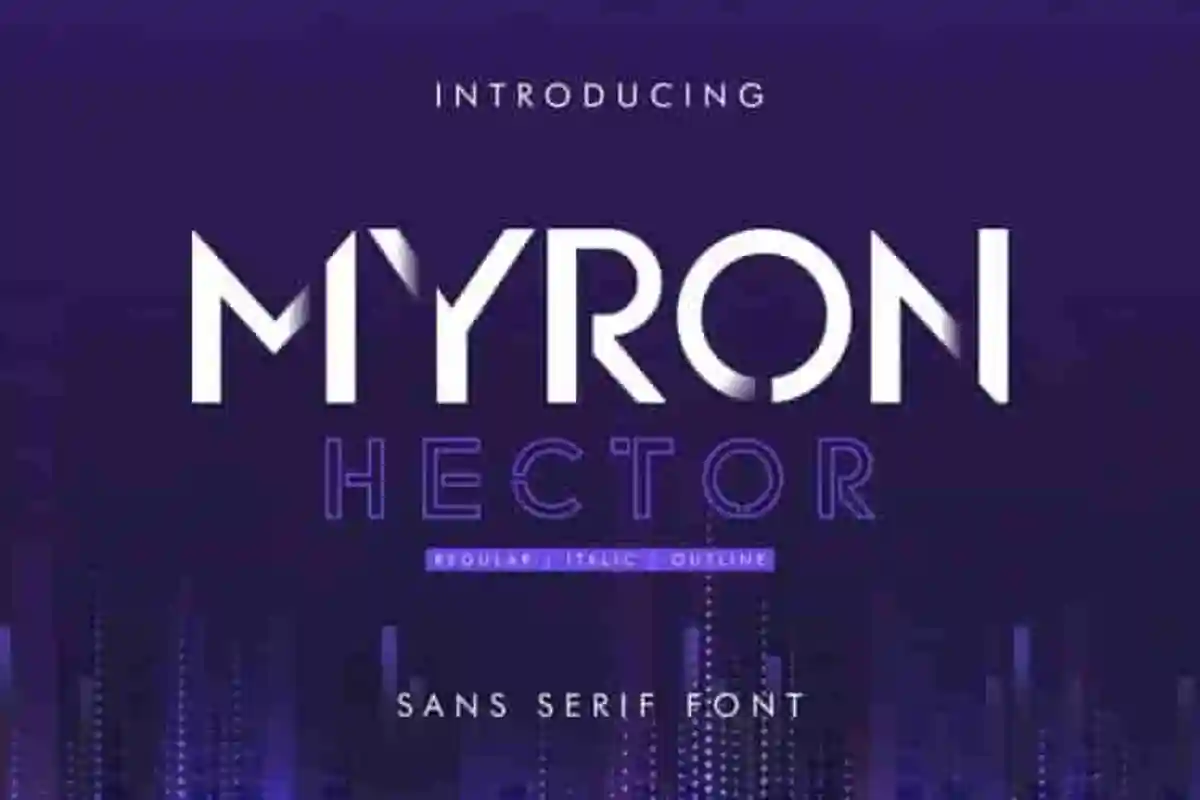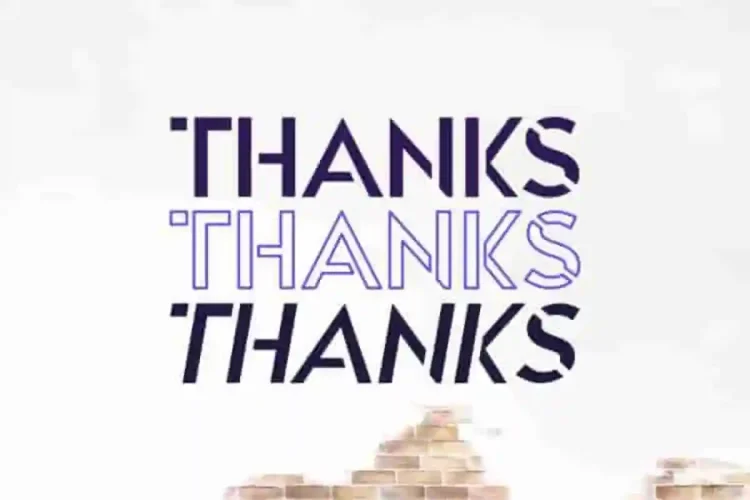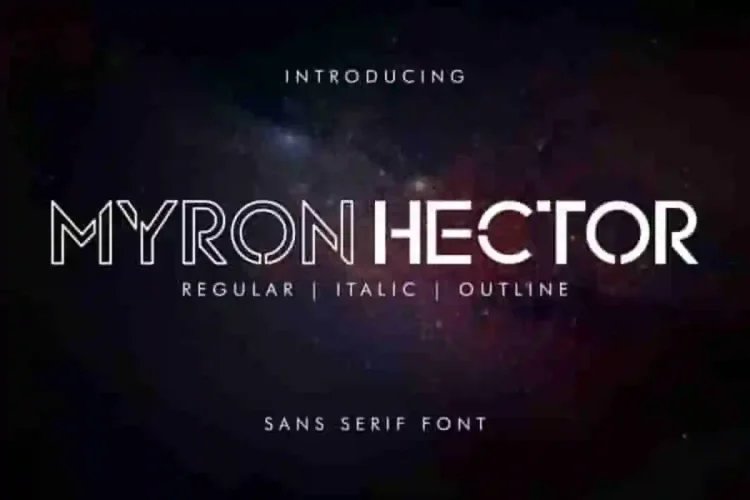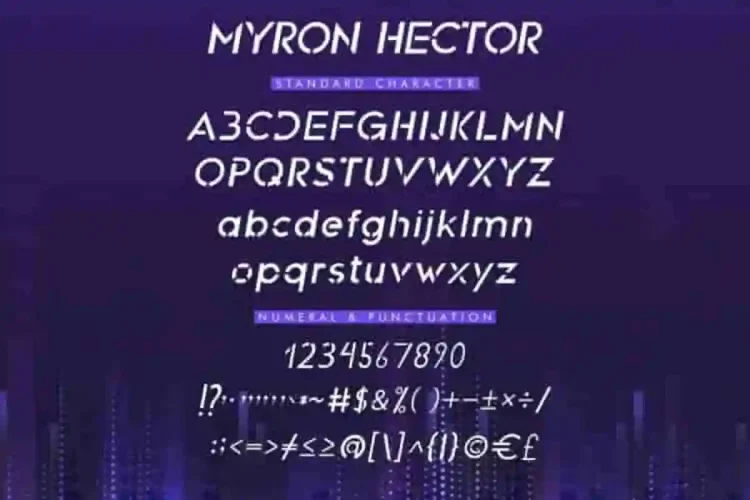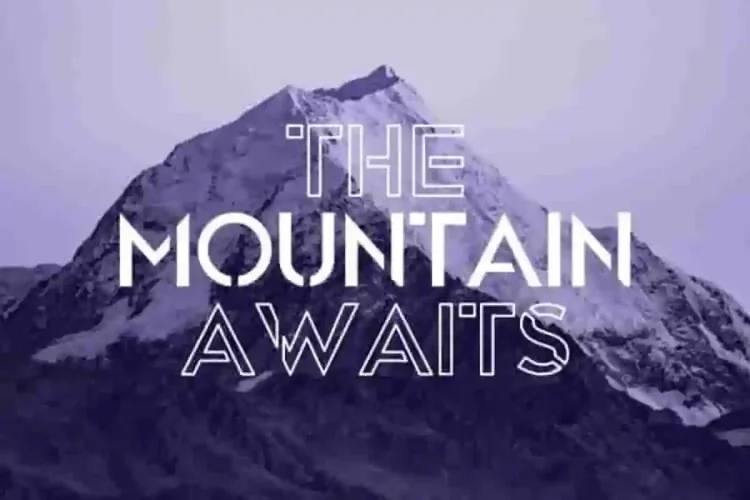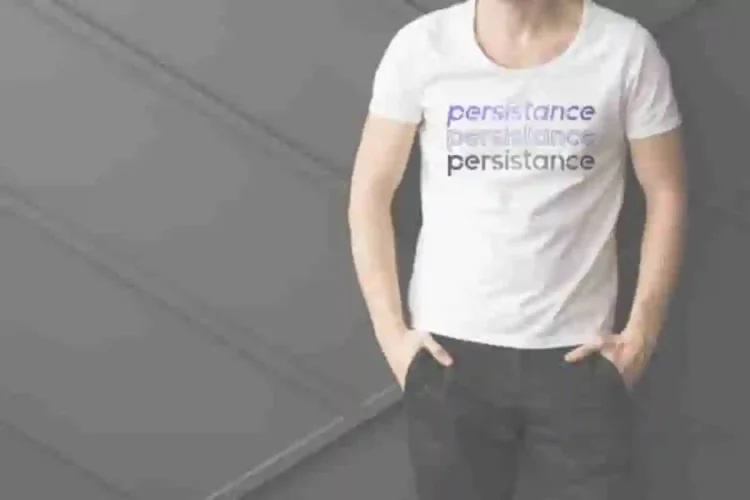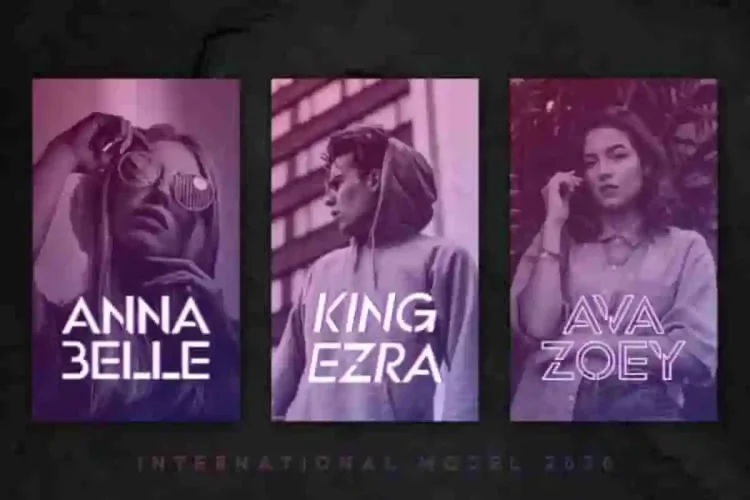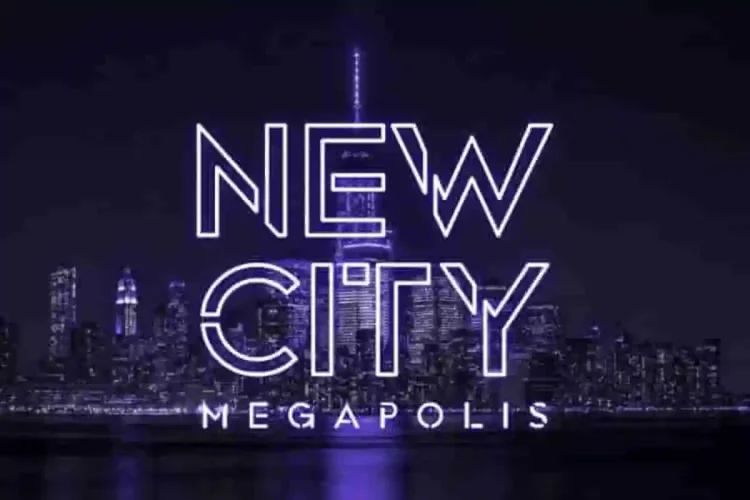
Myron Hector Sans Serif Font
Introducing our newest font from our lovely artist : Myron Hector Font
This is a sans serif font family, handcrafted from our Studio here in, Indonesia. The artists/designers of this beautiful typeface is Lukman and Suci.
Myron Hector Font is an exclusive sans serif font with 3 styles : Regular, Italic and Outline. This font has a stunning characters set, perfectly managed with well spaced and kerning. The theme style of this font will elegant, luxury, futuristic, gold, modern, stylish, sophisticated and minimal style.
Myron Hector Font will be great for any projects including : branding, logo, stationery, business card, signage, flyer, brochure etc. Almost all industries will be match for this typeface: architect, technology, health company, insurance, lawyer, startup, gaming, events, real estate, architect, law firm, florist, gardening, makeup artist, travel, hotel, musician etc